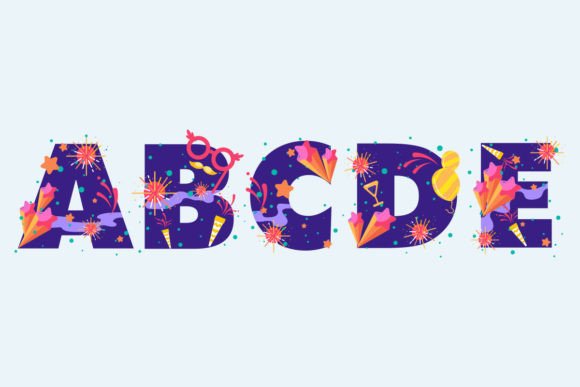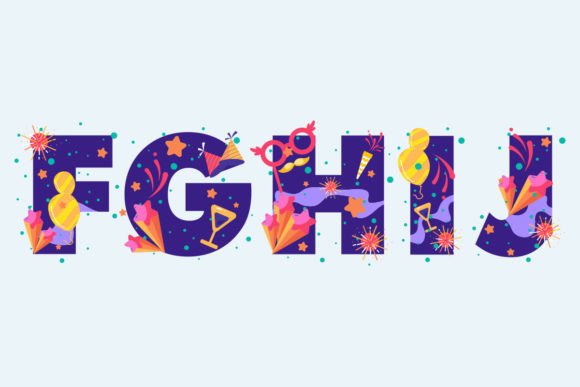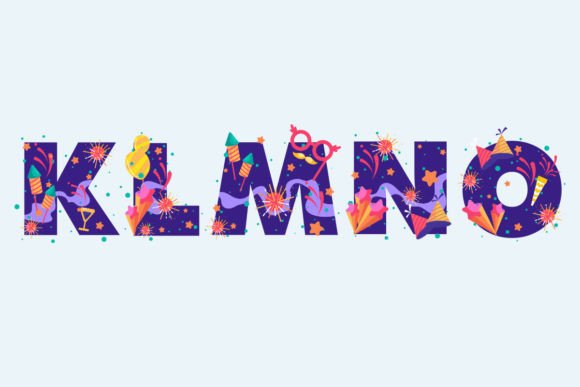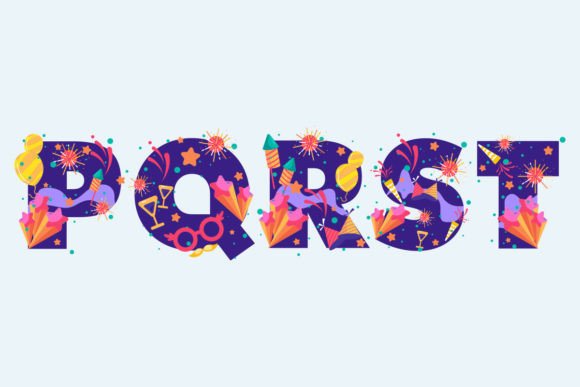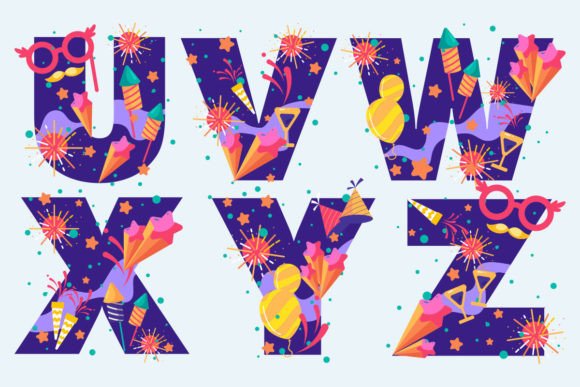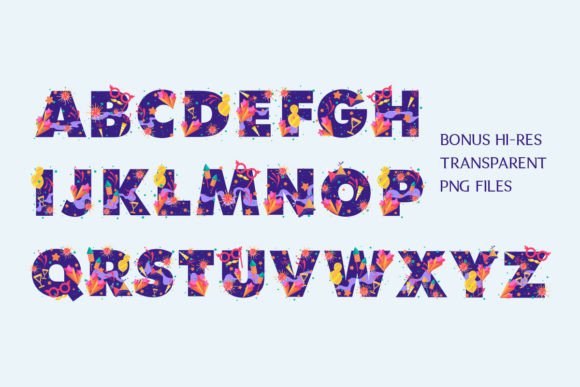
Introducing Geomile Festival Font: Elevate Your Designs with Vibrant Geometry
Are you tired of using the same old fonts for your designs? Look no further! Geomile Festival Font is here to revolutionize your creative projects with its bold, geometrical, and colorful style. This gorgeous font is perfect for designers and crafters who want to add a playful and exciting touch to their work.
What is Geomile Festival Font?
Geomile Festival Font is a flat festival design element that features a vibrant and colorful pattern. This font is not just a simple typeface, but a comprehensive design element that can be used to create stunning patterns, posters, merchandise, t-shirts, and even logomarks. The detailed element style of Geomile Festival Font makes it perfect for designs related to parties or festivals.
Key Features of Geomile Festival Font
- Bold and Geometrical: Geomile Festival Font features bold and geometrical shapes that add a modern touch to your designs.
- Vibrant and Colorful: The font comes with a vibrant and colorful pattern that guarantees to make your designs amazing and awesome.
- Flat Festival Design: The font has a flat festival design element that makes it perfect for creating party and festival-related designs.
- Playful and Exciting: The detailed element style of Geomile Festival Font makes your designs more playful and exciting.
- Endless Creative Possibilities: You can use Geomile Festival Font to create a wide range of designs, from patterns and posters to merchandise and logomarks.
How to Use Geomile Festival Font
- Create Patterns: Use Geomile Festival Font to create stunning patterns that can be used on fabrics, wallpaper, or even gift wrapping paper.
- Design Posters: Create eye-catching posters for parties, festivals, or events using Geomile Festival Font.
- Make Merchandise: Use Geomile Festival Font to create merchandise, such as t-shirts, hats, or tote bags, that are perfect for festivals or parties.
- Design Logomarks: Create unique logomarks for your business or brand using Geomile Festival Font.
Benefits of Using Geomile Festival Font
Using Geomile Festival Font can bring numerous benefits to your designs. Here are some of the advantages of using this amazing font:
- Unique and Creative: Geomile Festival Font is a unique and creative font that can help you stand out from the crowd.
- Time-Saving: With Geomile Festival Font, you can create stunning designs in no time, saving you time and effort.
- Versatile: Geomile Festival Font can be used in a wide range of designs, from patterns and posters to merchandise and logomarks.
- High-Quality: Geomile Festival Font is a high-quality font that is designed to deliver exceptional results.
In conclusion, Geomile Festival Font is an amazing font that can elevate your designs to the next level. With its bold, geometrical, and colorful style, this font is perfect for designers and crafters who want to add a playful and exciting touch to their work. Whether you’re creating patterns, posters, merchandise, or logomarks, Geomile Festival Font is the perfect choice. So why wait? Get your hands on Geomile Festival Font today and start creating stunning designs that will leave a lasting impression!